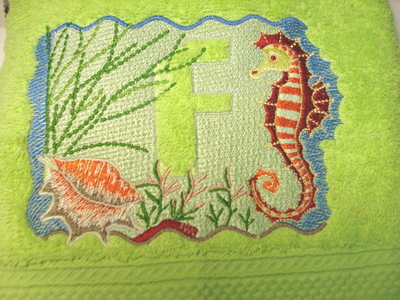
I did it! I embroidered a towel for my GS Francisco with the embossed sea font! Does'nt it look great? Worth of the time spent, doesn't it?
Nini, this is fab!Your towel color is perfect for this. I know he will just love it.
WOW its great , Lucky little boy :) Sadly it wont fit my 5x7 hoop.
can you resize it****
this is beautiful****
That is beautiful!! Great Job!! ;-D
It looks so nice. Thanks for sharing this.
Beautiful and a great job.
very nice.. love this one..
Parabéns nini, ficou ótimo! Tão alegre!
Maria, this is lovely and I am sure the Francisco will enjoy it, too.
wonderful, thanks for posting and I love the colours
Wonderful colours and very pretty!
Beautiful, I love the colours, and the design!
Sehr schön....
Looks great! Love the towel color selection for the design. It is really a nice design that was/is provided free.
It is absolutely gorgeous!! Beautiful job *
Muito bonito nini.
Boa nini. Ficou linda. Aqui é "em casa de ferreiro ... espeto de pau". Tenho de fazer umas para a minha filhota.
this very pretty, I can see this design all over a bathroom.
wow i like it look real great
Beautiful. Realy like this alphabet.
Beautiful I´m sure Francisco is very happy, Bjs xx
Looks great- I can't wait to stitch it out myself. I love the colors you used-the towel background makes it look wonderful!
All I can say is WOW!! I can't wait to do one in blues for my GD. Your colors are awesome! Carol
hoje eu tambem bordei este motivo, mas demorou quase 4 horas e a linha arrebentava sempre,,, E de fato muito belo. Parabens